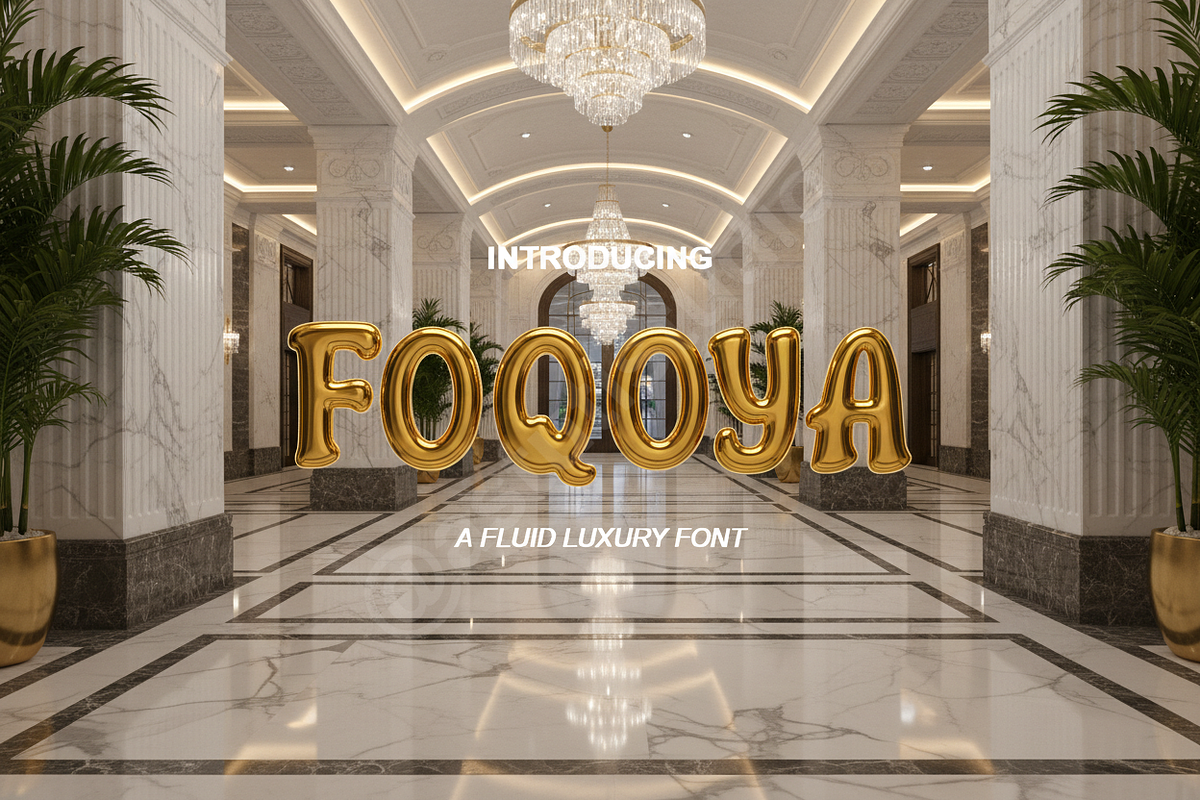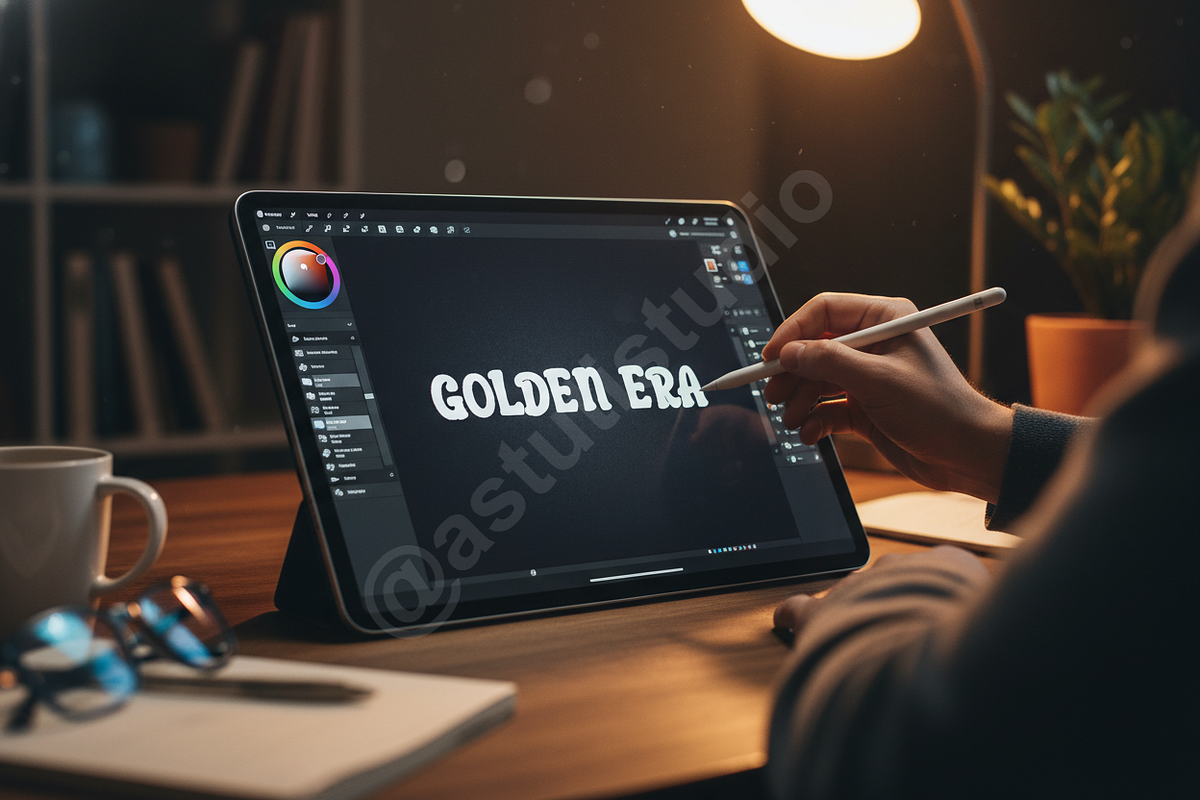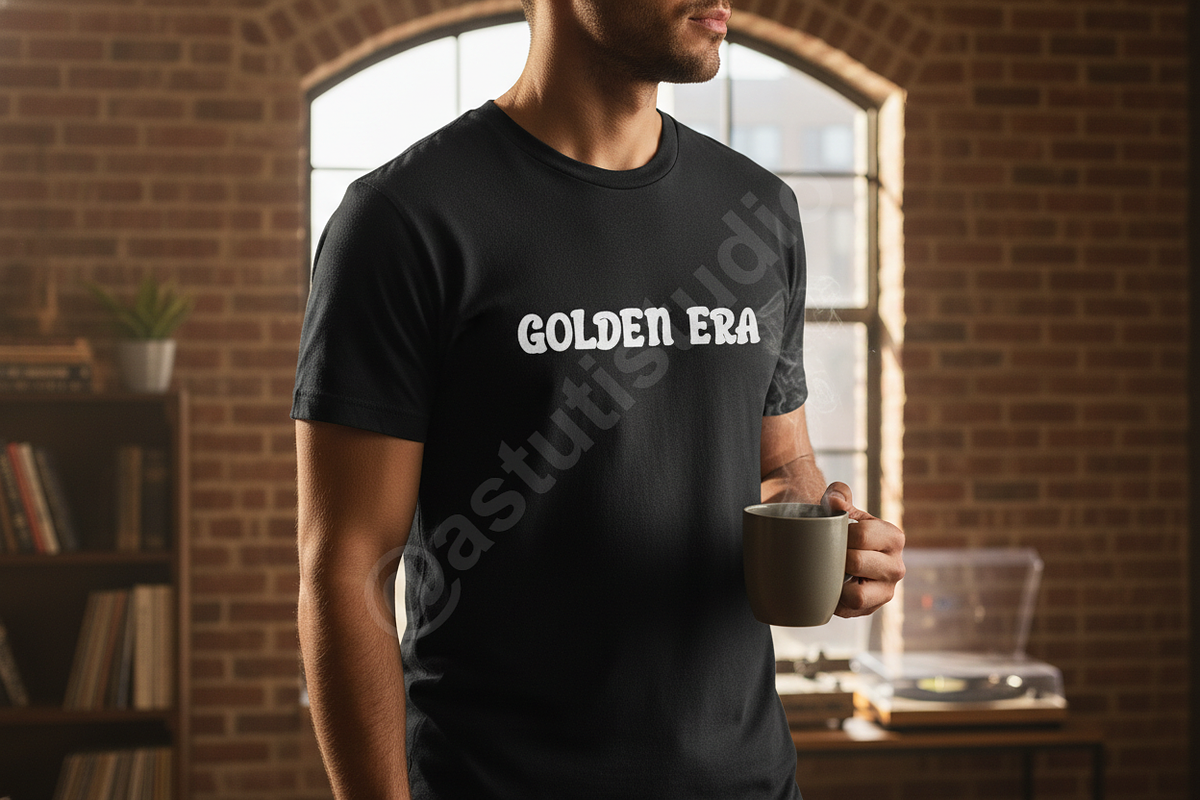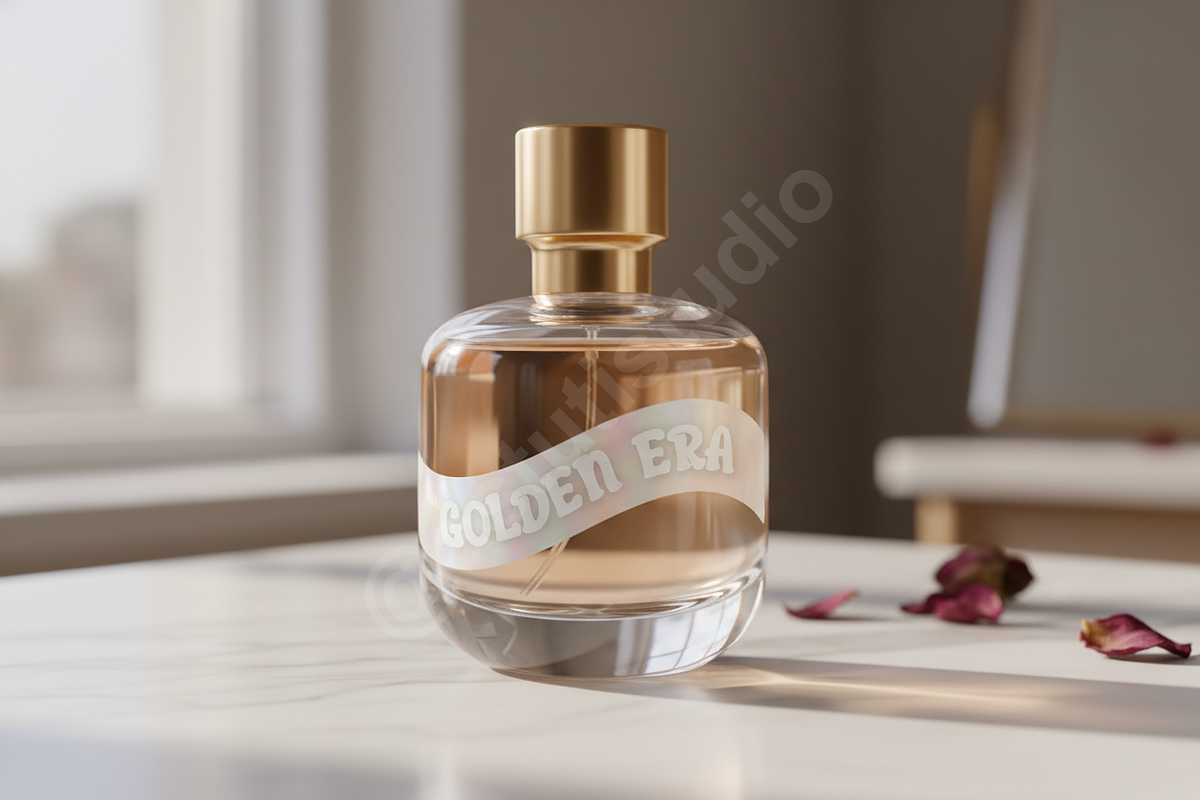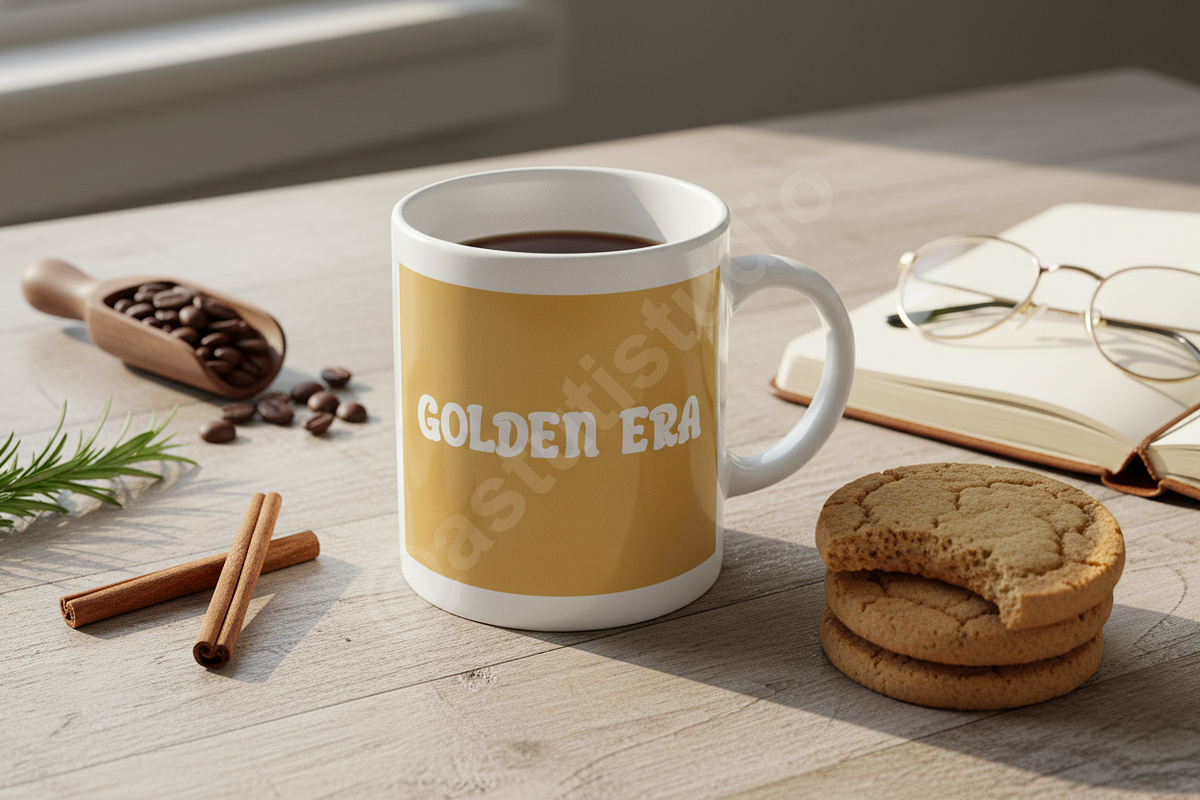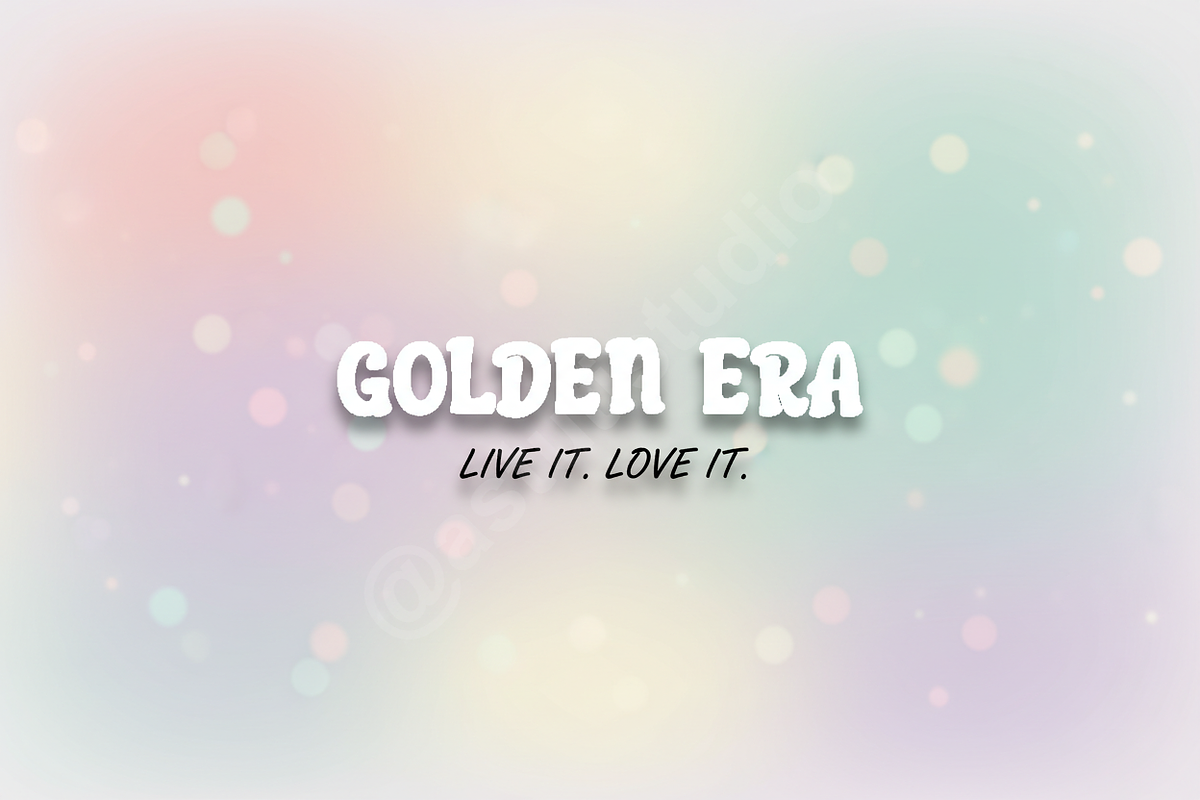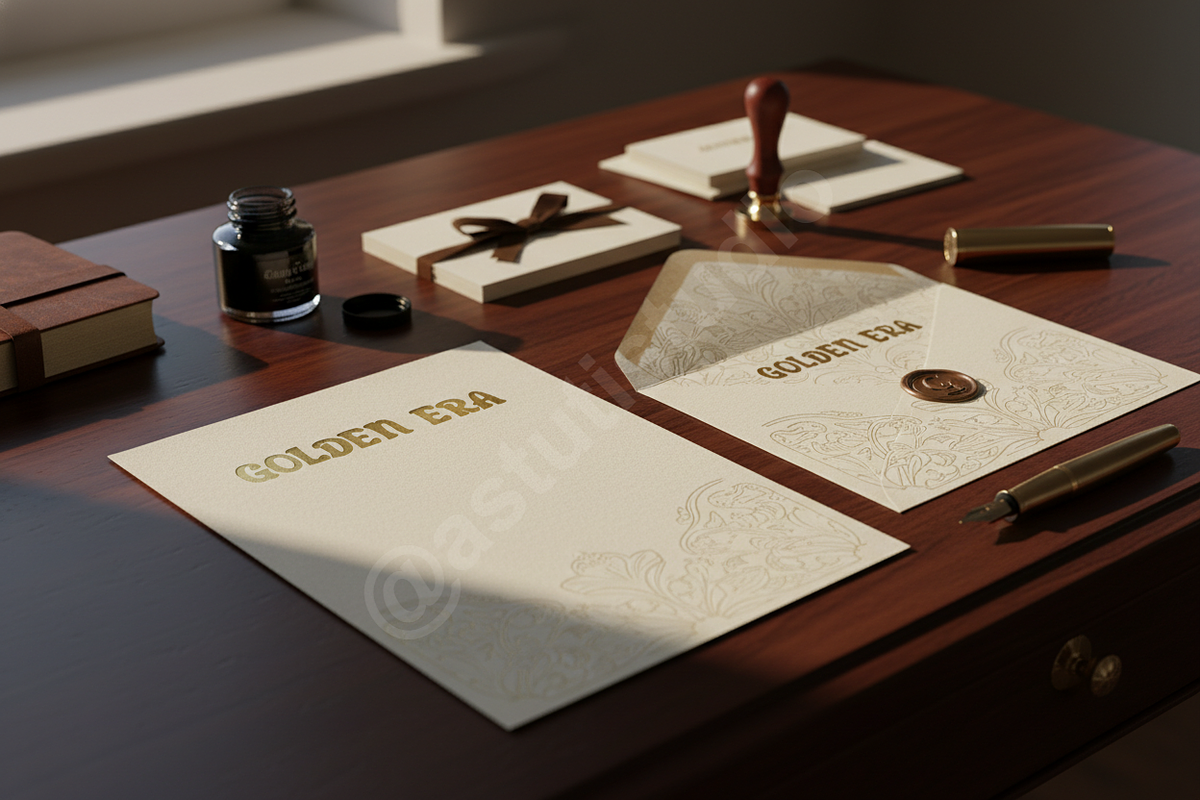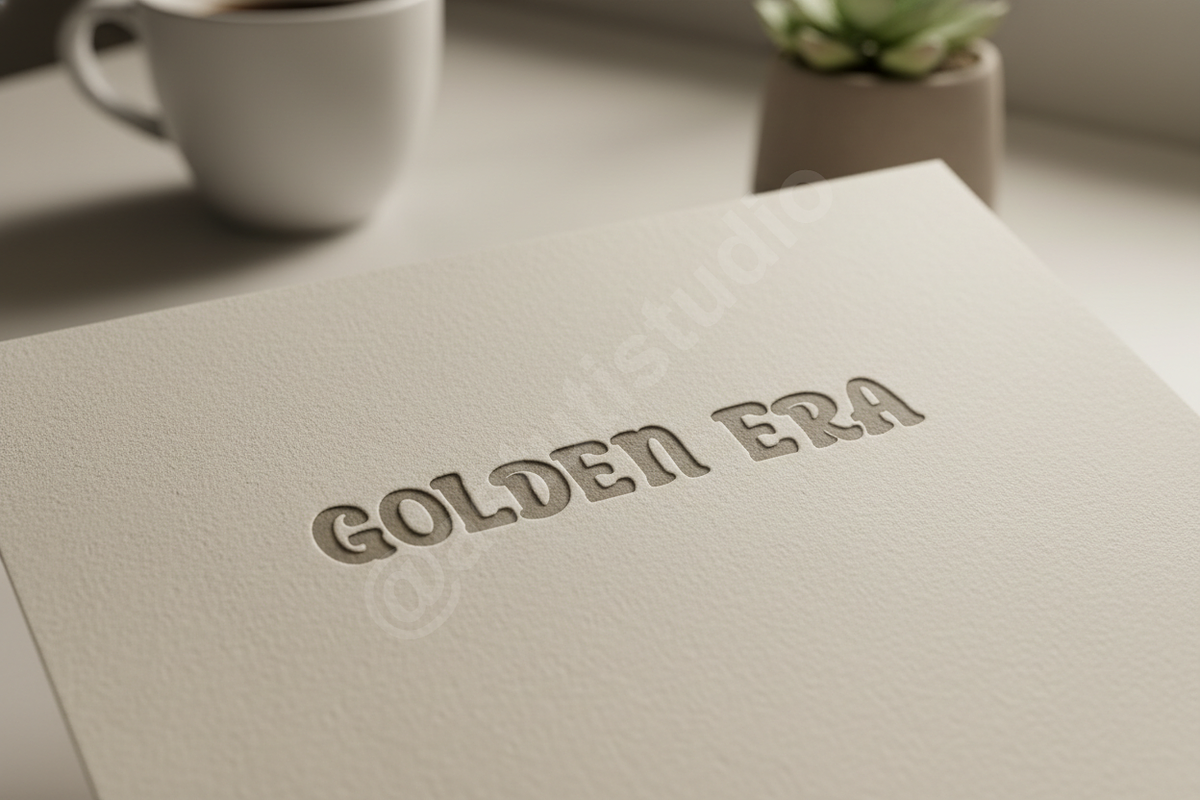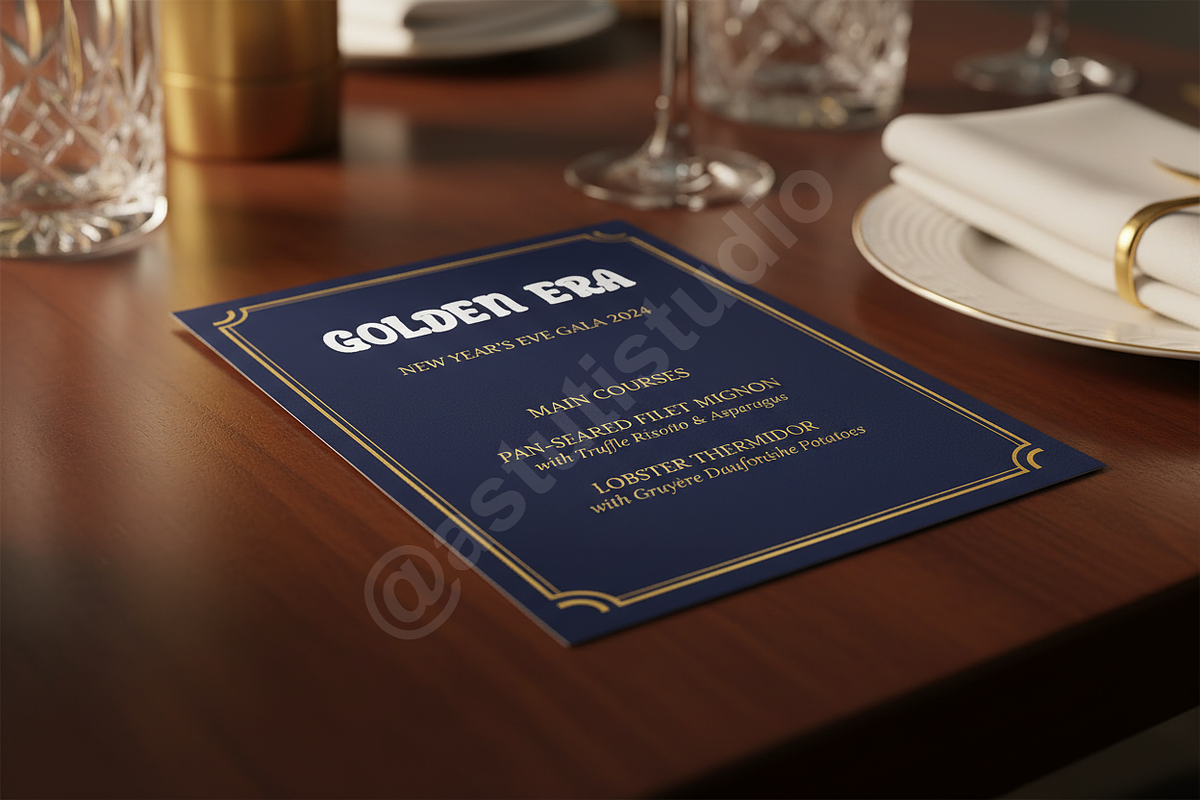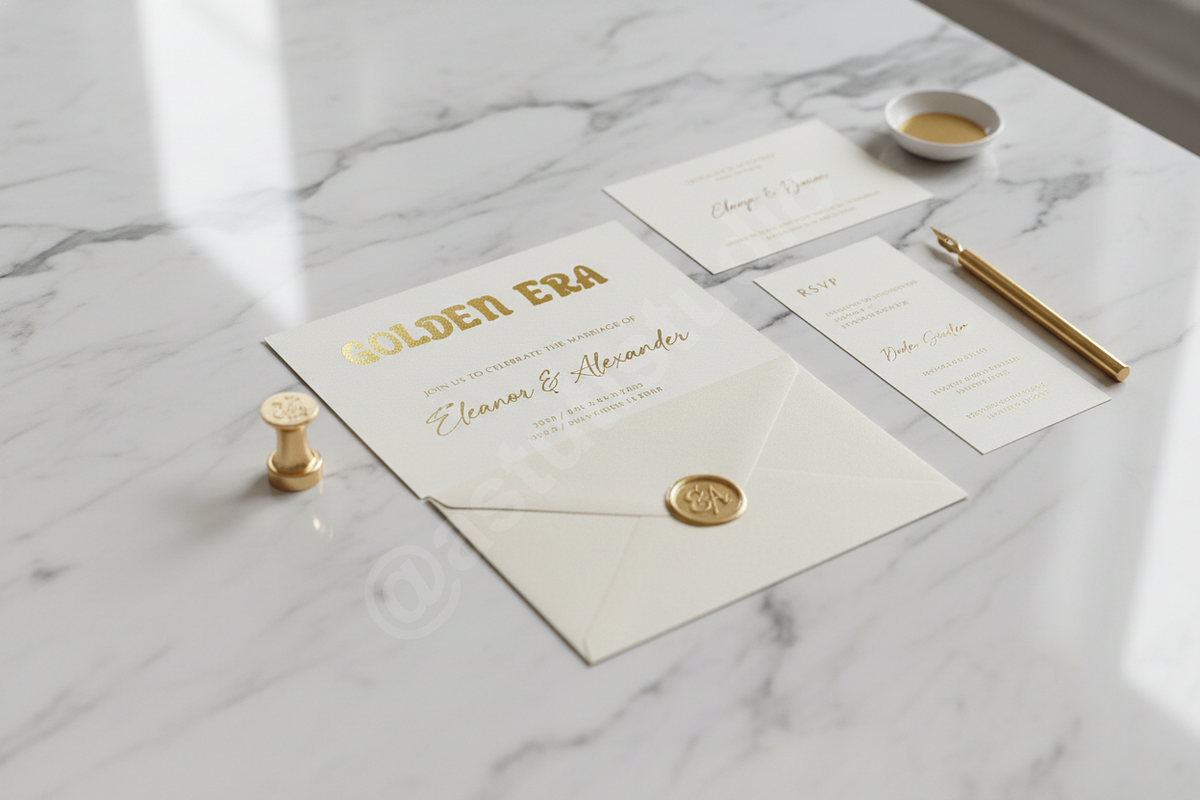
Foqoya - Elegant Luxury Display Seri
INTRODUCTION Introducing Foqoya, an exquisite display serif typeface meticulously crafted to embody modern luxury and timeless sophistication. Designed with high contrast lines, delicate curves, and beautifully balanced serifs, Foqoya brings an unmatched sense of refinement and premium quality to any project. It is the definitive choice for designers seeking to elevate luxury branding, high-end editorial layouts, and impactful social media campaigns above the ordinary.
KEY FEATURES
- High Contrast Styling: Maximum elegance and readability for large display sizes.
- Elegant Ligatures & Alternates: A comprehensive set of stylistic alternates and ligatures for enhanced fluidity and uniqueness in logotype creation.
- Extensive Multilingual Support: Covering major Latin-based languages for global brand presence.
- Optimized Kerning: Professional grade kerning for seamless text flow in both digital and print media.
- Full set of uppercase (A-Z) and lowercase (a-z) letters
- Numerals, Punctuation, and Symbols
- Comprehensive International Glyph Support (AÀÁÂÃ...)